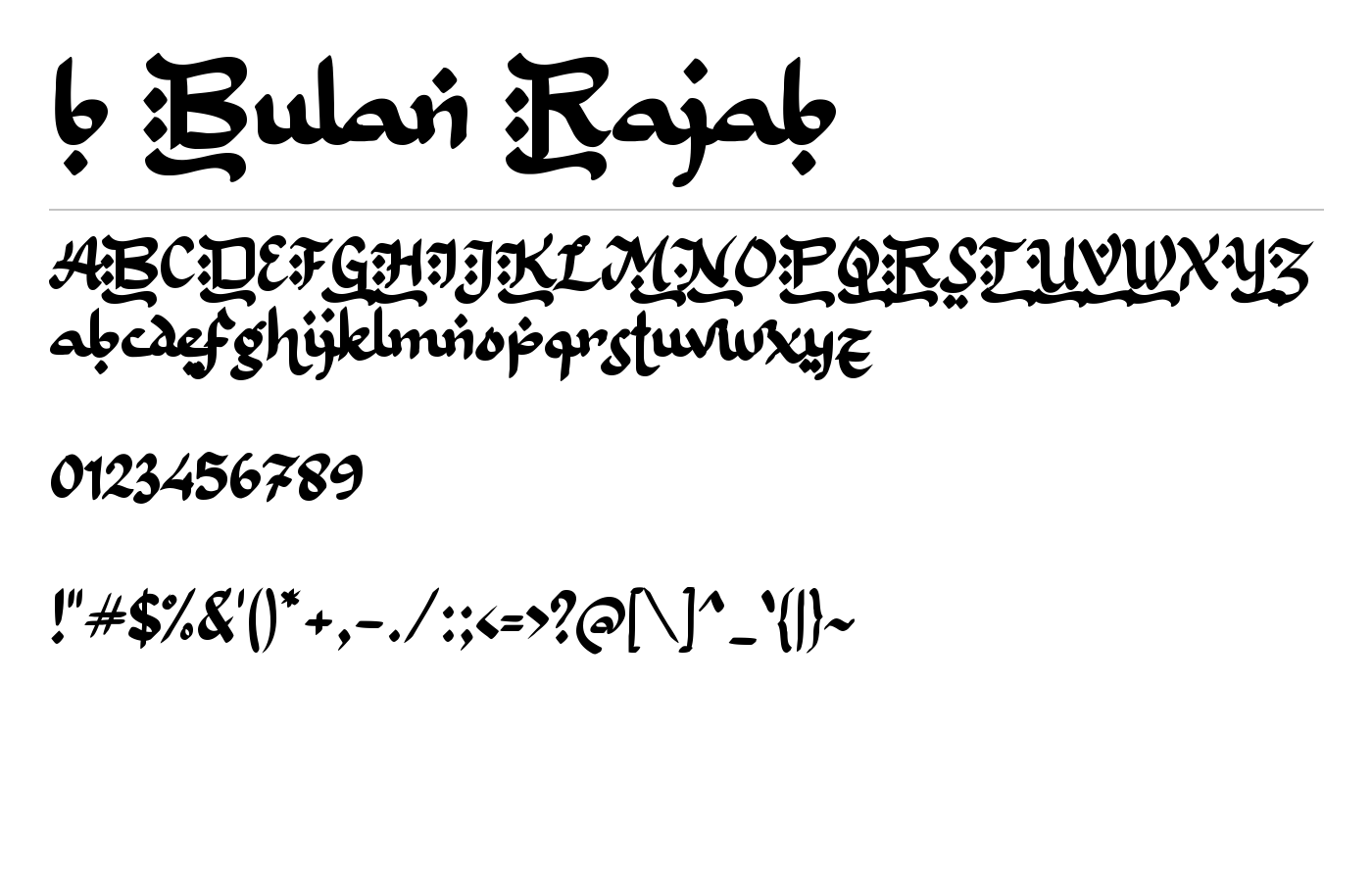
Bulan Rajab is a distinctive serif font with a strong calligraphic influence, featuring high stroke contrast and bold, decorative serifs that give it a vintage, artistic feel. Its unique letterforms and ornate details make it ideal for expressive headlines, logos, and branding that require a dramatic and elegant touch. This font works best in creative design projects where a historical or handcrafted aesthetic is desired.
b Bulan Rajab Font
About b Bulan Rajab Font